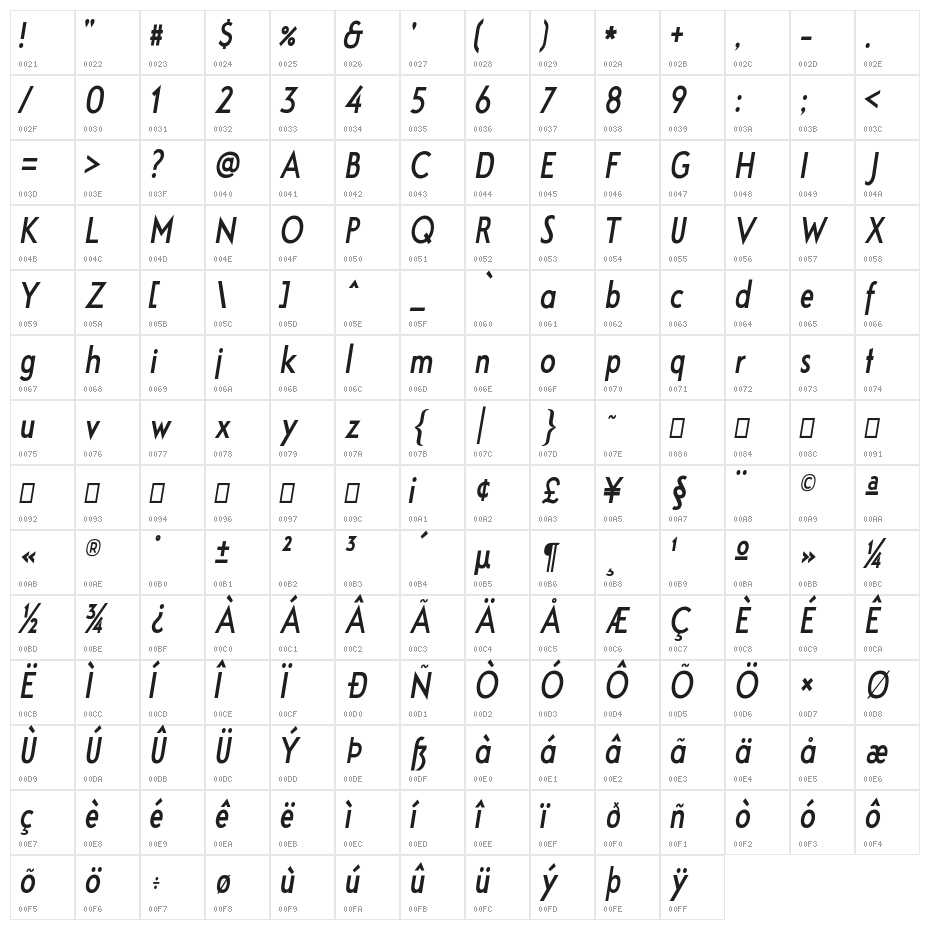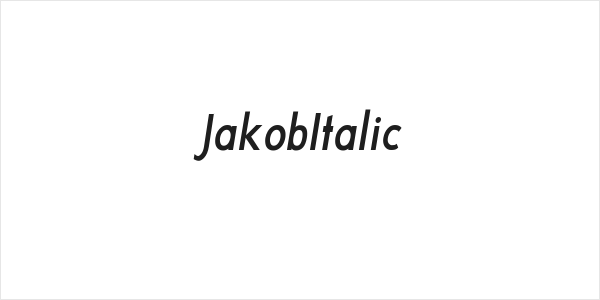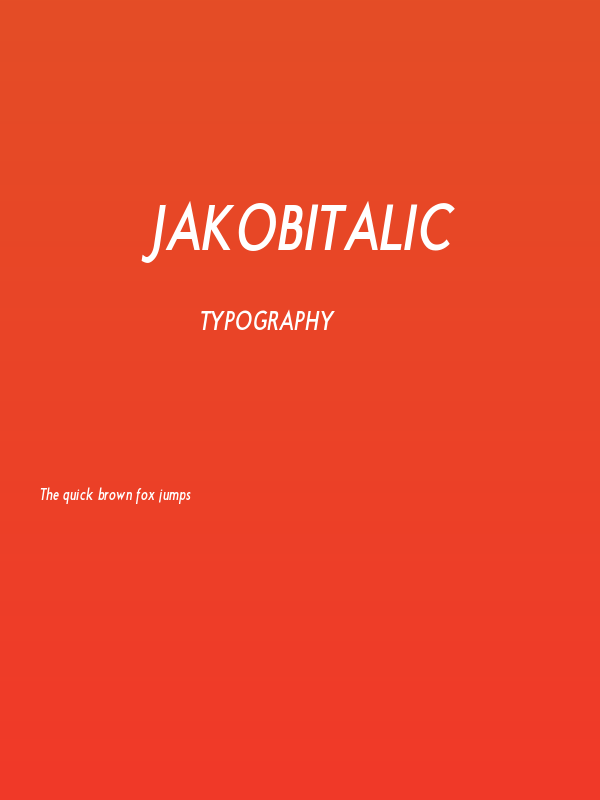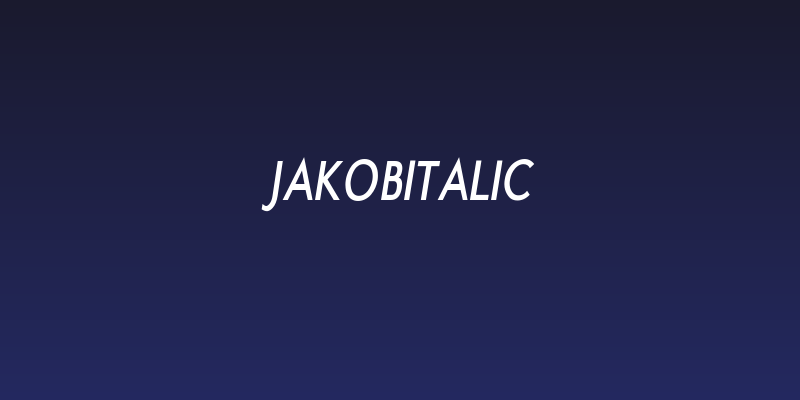
JakobItalic Font
JakobItalic Description
This font features a sleek and modern italic style, characterized by its clean lines and slightly condensed letterforms. The uppercase letters are bold and assertive, while the lowercase letters maintain a consistent flow, enhancing readability. Numbers are well-proportioned, and the special characters are distinct and versatile. The overall design exudes a sense of elegance and professionalism, making it suitable for a variety of applications. Its italic nature adds a dynamic and forward-moving feel, perfect for conveying motion or emphasis.
| Proposed Projects | Ideal for branding, advertising, editorial design, and digital media where a modern and dynamic appearance is desired. |